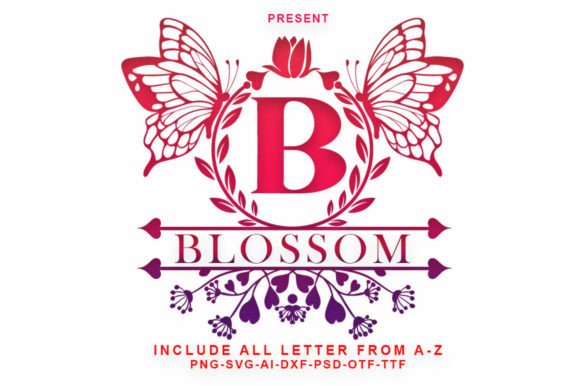
Introducing Blossom Monogram Font: Elevate Your Designs with Elegance
Are you a designer or crafter looking for a font that exudes elegance and sophistication? Look no further than the Blossom Monogram Font. This beautiful decorative font is perfect for creating stunning wedding invitations, stationary art, social media posts, and greeting cards that will leave a lasting impression.
The Charm of Blossom Monogram
Blossom Monogram is an elegant decorative font that features lovely ornaments, giving it an authentic feel that’s sure to capture the hearts of your audience. Its unique and intricate design makes it perfect for special occasions, such as weddings, anniversaries, and birthdays. With Blossom Monogram, you can add a touch of sophistication and glamour to your designs, making them truly unforgettable.
One of the best features of Blossom Monogram is that it’s PUA (Private Use Area) coded. This means that you can easily access all glyphs and swashes, making it simple to customize your designs. With PUA coding, you can unlock a world of creative possibilities, from beautiful ligatures to stunning ornaments. Whether you’re a seasoned designer or a crafty DIY enthusiast, Blossom Monogram’s PUA coding makes it easy to get the most out of this gorgeous font.
Blossom Monogram is incredibly versatile, making it perfect for a wide range of design projects. Here are just a few ideas to get you started:
- Wedding Invitations: Create stunning wedding invitations that set the tone for the big day. With Blossom Monogram, you can add a touch of elegance and sophistication to your designs.
- Stationary Art: Add a personal touch to your stationary art with Blossom Monogram. From beautiful notecards to elegant letterheads, this font is perfect for creating gorgeous stationary that will make your designs stand out.
- Social Media Posts: Make your social media posts stand out with Blossom Monogram. Whether you’re promoting a product, sharing a special announcement, or simply connecting with your audience, this font is sure to grab attention.
- Greeting Cards: Create adorable greeting cards for special occasions, such as birthdays, anniversaries, and holidays. With Blossom Monogram, you can add a touch of whimsy and charm to your designs.
Why Choose Blossom Monogram?
So why choose Blossom Monogram over other fonts? Here are just a few reasons why this font stands out:
- Elegant Design: Blossom Monogram features a beautiful, elegant design that’s perfect for special occasions.
- PUA Coded: With PUA coding, you can easily access all glyphs and swashes, making it simple to customize your designs.
- Versatile: Blossom Monogram is incredibly versatile, making it perfect for a wide range of design projects.
- Easy to Use: Whether you’re a seasoned designer or a crafty DIY enthusiast, Blossom Monogram is easy to use and customize.
Get Ready to Fall in Love
In conclusion, Blossom Monogram is a beautiful decorative font that’s perfect for designers and crafters looking to add a touch of elegance and sophistication to their designs. With its PUA coding, elegant design, and endless design possibilities, this font is sure to become a go-to in your collection. So why wait? Download Blossom Monogram today and start creating gorgeous designs that will leave a lasting impression.